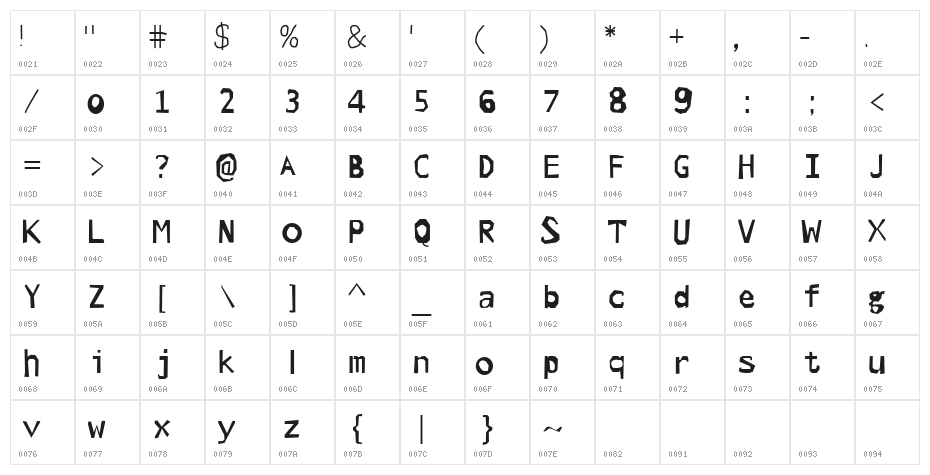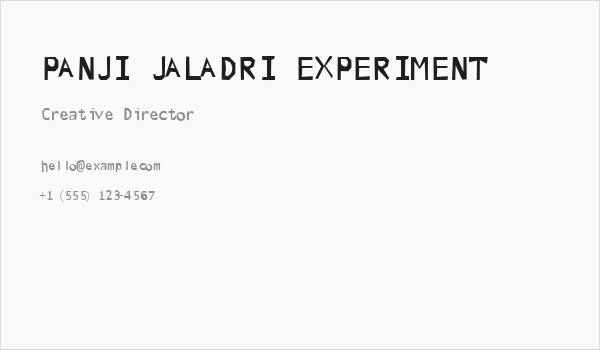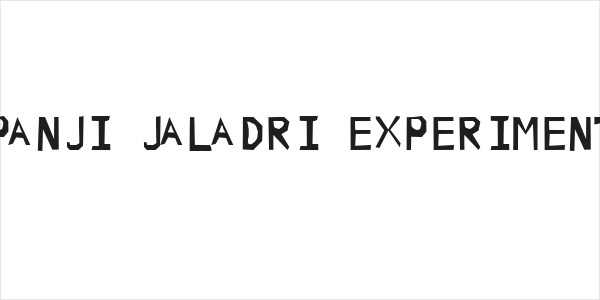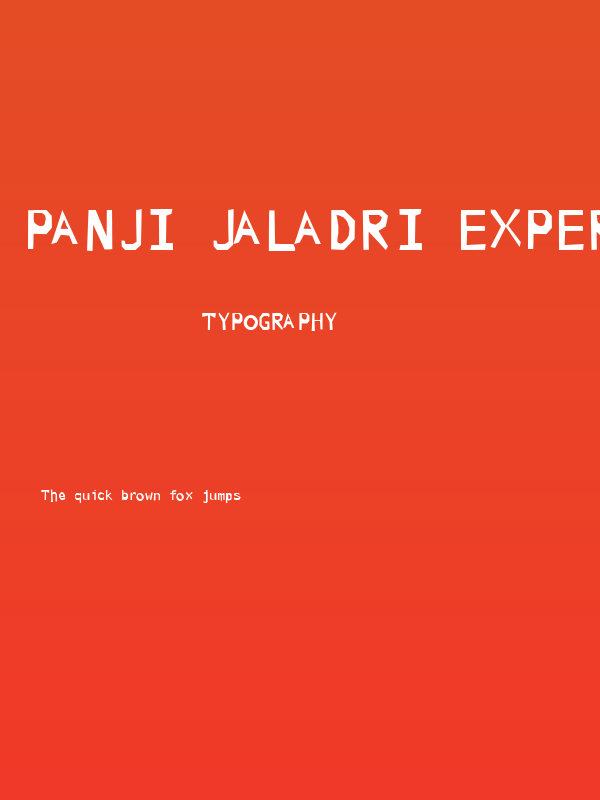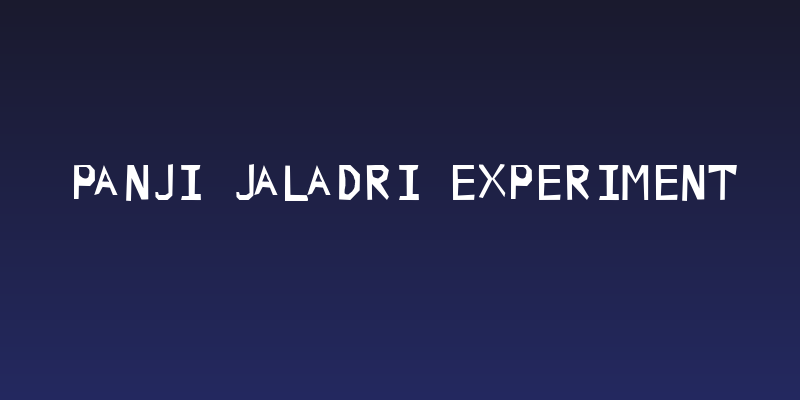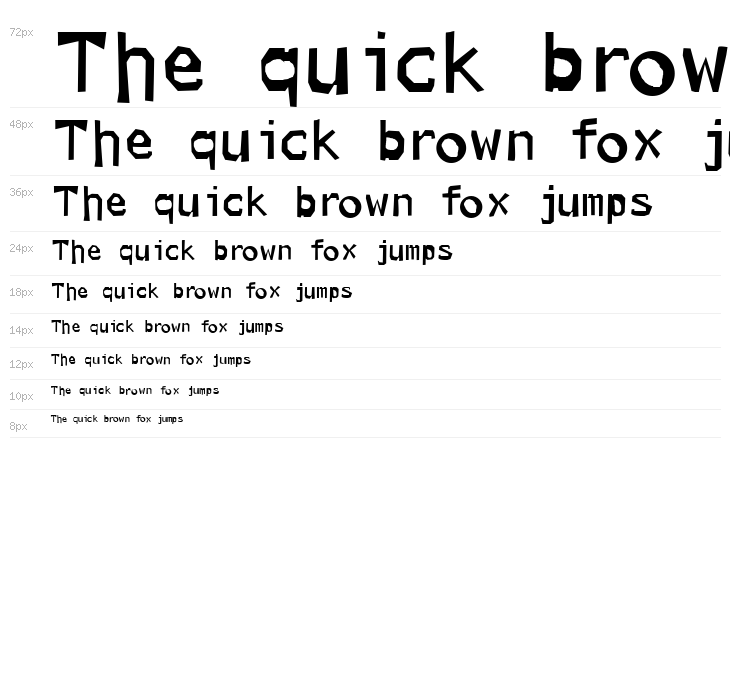
PANJI JALADRI EXPERIMENT Font
PANJI JALADRI EXPERIMENT Description
This font features a bold, angular design with a distinctive geometric style. The uppercase letters are characterized by sharp edges and a blocky appearance, while the lowercase letters maintain a similar angularity with slightly more variation in form. The numerals are consistent with the overall geometric theme, offering a bold and striking look. Special characters are uniquely styled, maintaining the font's edgy aesthetic. This font's strong visual impact makes it suitable for attention-grabbing designs.
Proposed ProjectsIdeal for posters, logos, branding, and any design requiring a bold, modern aesthetic.